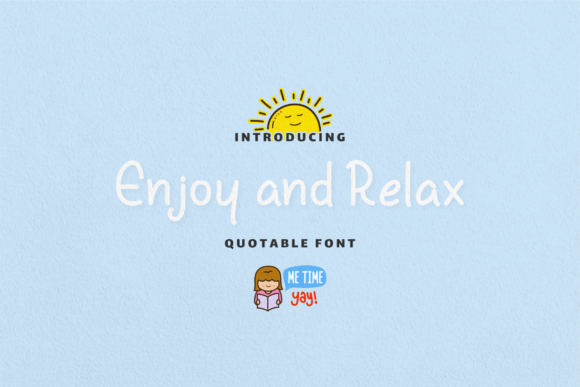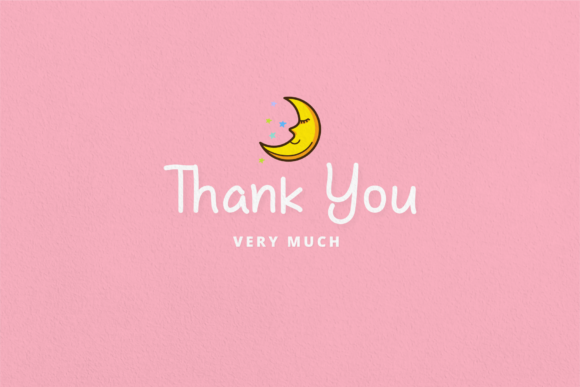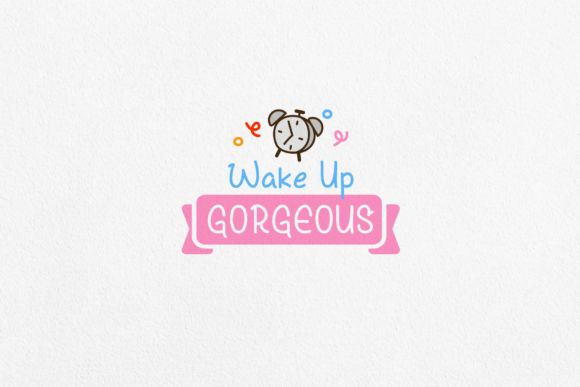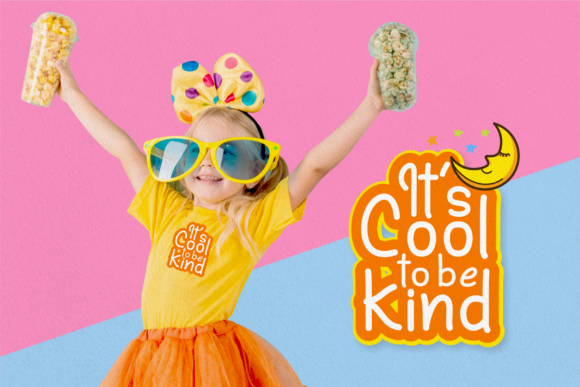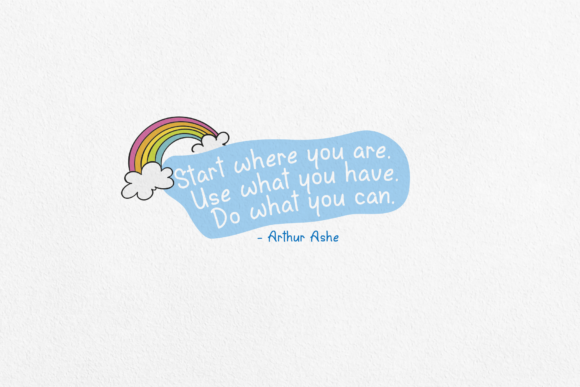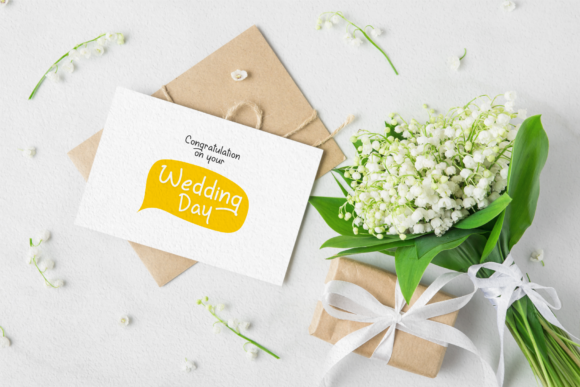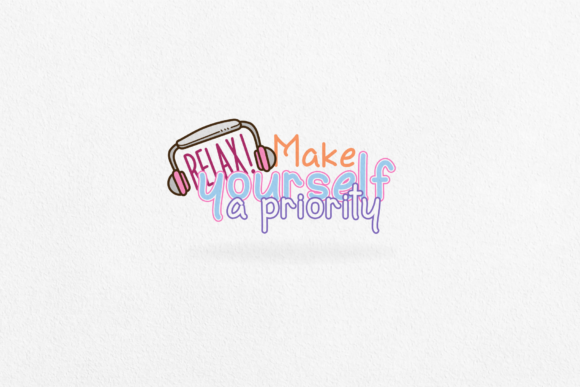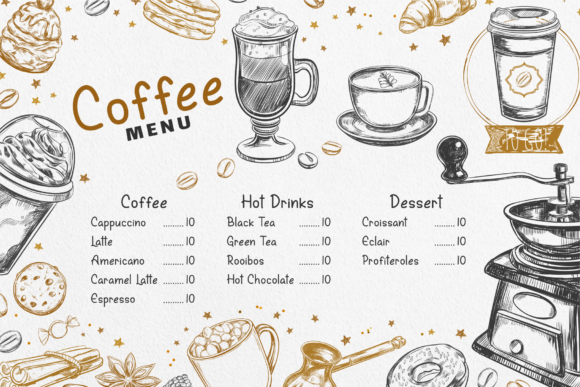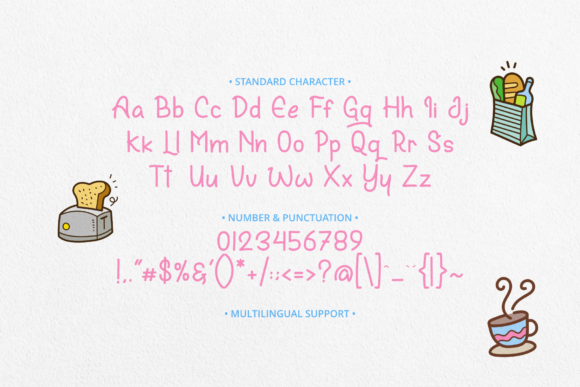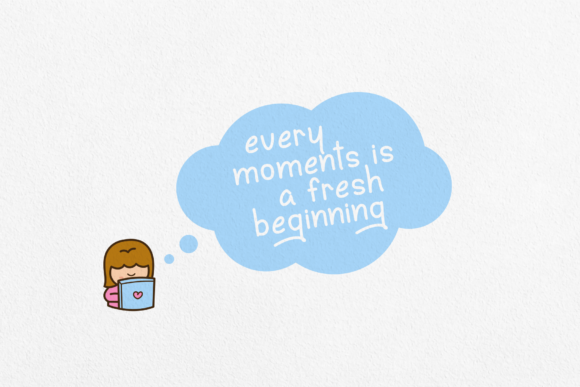
Enjoy and Relax Font
About Enjoy and Relax Font
Enjoy and Relax is a simple and neat handwritten font. It is incredibly useful for writing quotes, but due to its clean style, this font is fit for a wide variety of other design ideas.